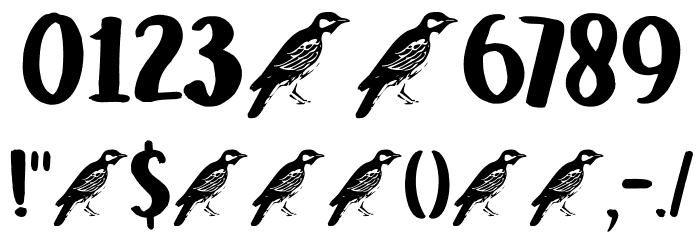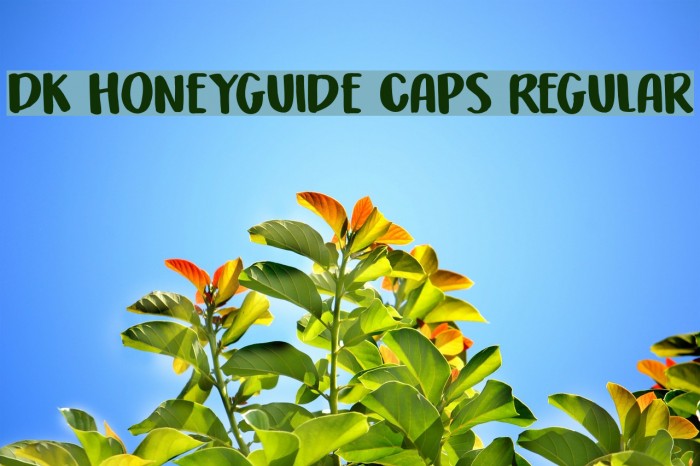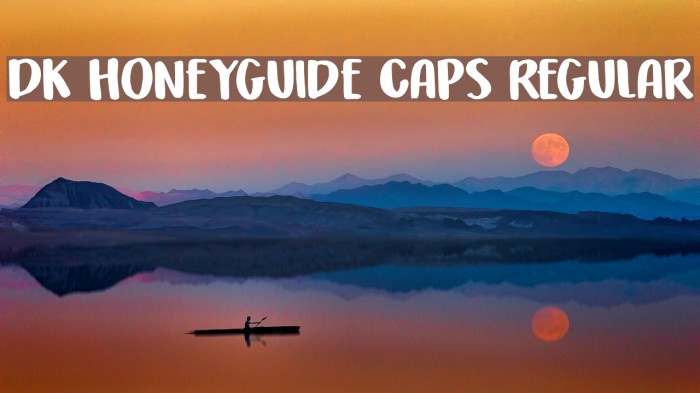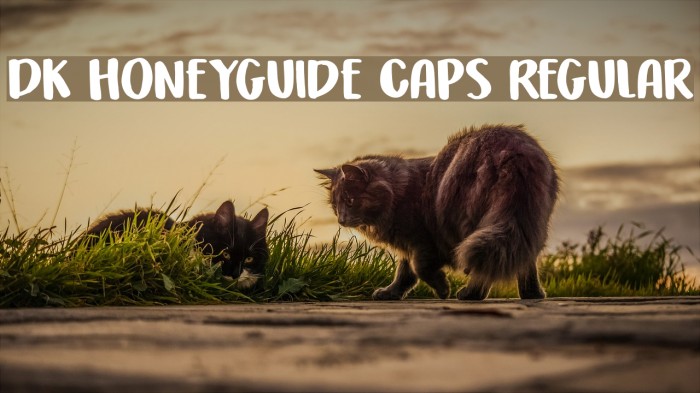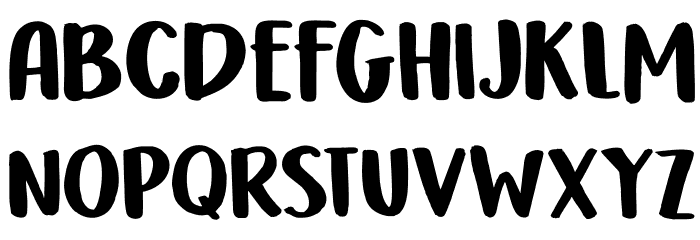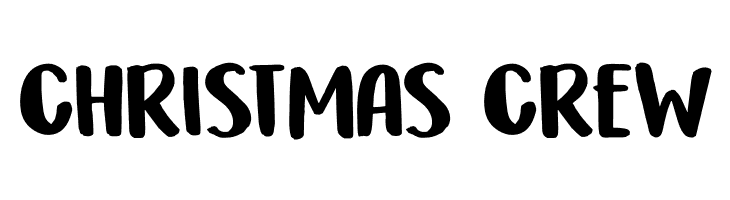
DK Honeyguide Caps Regular Font
DK Honeyguide Caps Regular Description
This font features a bold and playful design with a hand-drawn aesthetic. The characters are rounded and slightly irregular, giving a whimsical and friendly appearance. The uppercase letters are prominent and consistent in style, while the numbers maintain the same playful quality. Special characters are included, adding versatility to the font. The overall look is informal and artistic, making it suitable for creative projects that require a touch of personality.
A bold, playful font with a hand-drawn, whimsical style from Uncategorized fonts.
- Proposed Projects: Ideal for children's books, playful branding, creative posters, and artistic invitations.
- Overall Style: Playful, Artistic